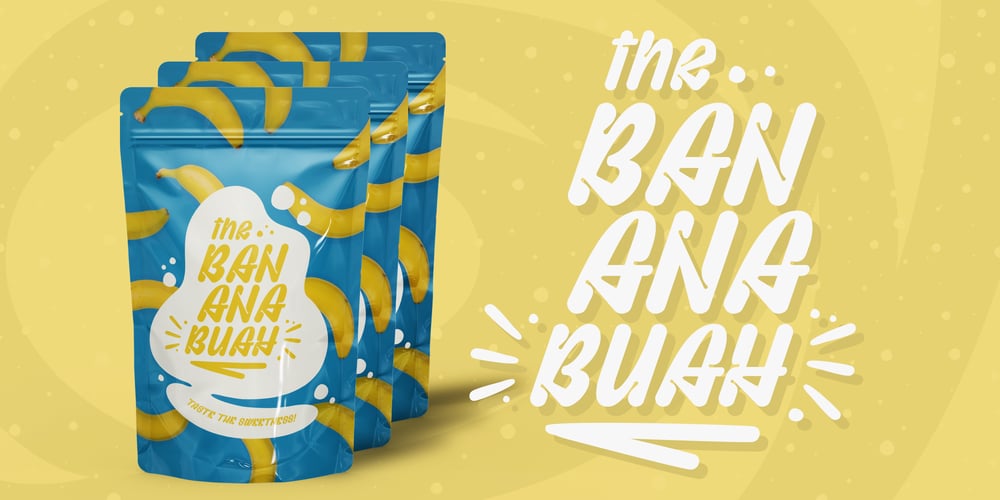
Bhiver Bubble Font
Bhiver Bubble Font font
Bhiver Bubble Font Font Family was designed by Lukmanul Khikmatullah and published by Maculinc. Bhiver Bubble Font contains 2 styles and family package options. Bhiver is a san serif font with an angled and curved style in every corner, we made it with a display style that is perfect for making product packaging such as: Coffee Packaging, Ice Cream Packaging, Beauty Packaging, and for Brochures, Templates, Social Media Post, and etc.Bhiver is also equipped with Swash which you can access according to what we have provided, form sentences as you like by combining Swashes to make it look more attractive like the example that I have previewed.1 Display Font and 1 SwashMultilingual SupportIf you are looking for a custom font or web license, and for support, feel free to contact us at maculinc@gmail.comThank you for visiting us and don’t forget to follow us :Behance ( https://www.behance.net/maculinc )Dribbble ( https://dribbble.com/Maculinc )Instagram ( https://www.instagram.com/maculinc/ )